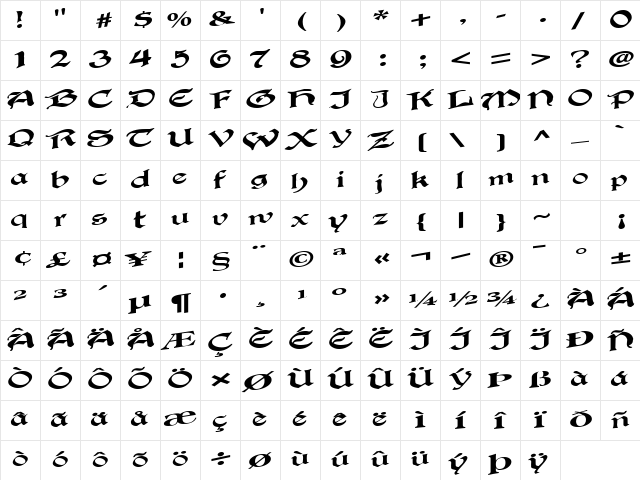
Tennis Regular
Design Context for Tennis Typeface
Tennis is a composed and adaptable typeface that performs quietly and consistently across a wide range of design contexts.